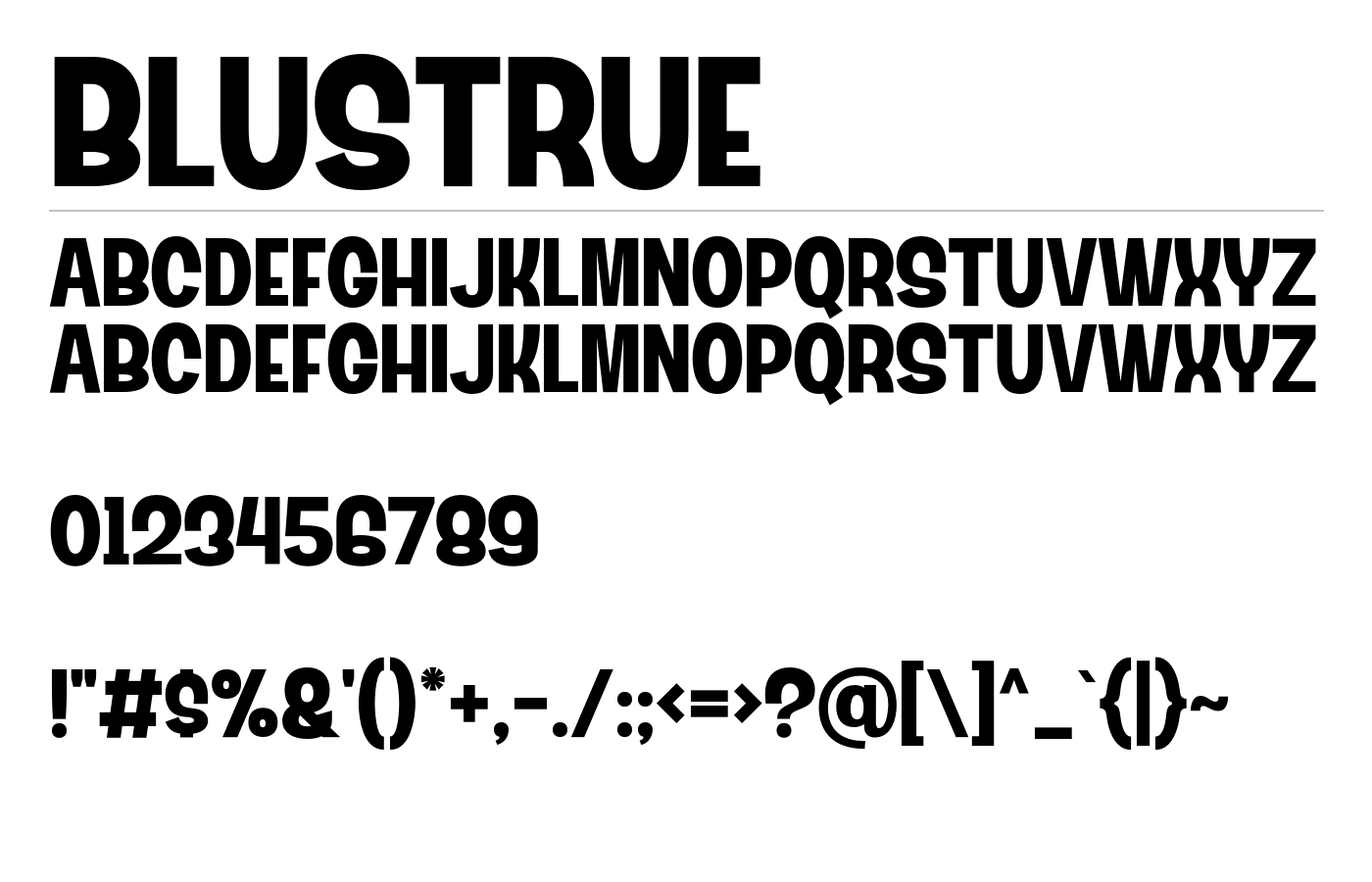
Blustrue is a bold, condensed sans serif font with a strong, modern presence. Its high x-height and uniform stroke weight give it excellent readability and a compact style, while unique shapes like the slightly angled Q tail add subtle personality. Ideal for impactful headlines, logos, and branding, Blustrue communicates confidence and clarity in a sleek, contemporary way.
Blustrue Font
About Blustrue Font
| Font family | Blustrue Font |
| Designer | Iqbal Pauji |